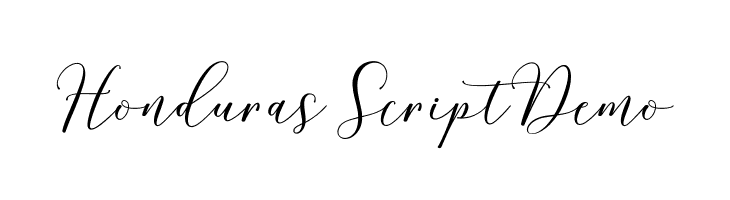
A fluid and expressive handwritten font with a cursive style.
An elegant, flowing script font with interconnected cursive strokes.
A lively and fluid handwritten font with a dynamic cursive style.
A dynamic, handwritten script font with fluid, expressive strokes.
An elegant, high-contrast script font with flowing, cursive letters.
An elegant, flowing script font with graceful curves and decorative swashes.